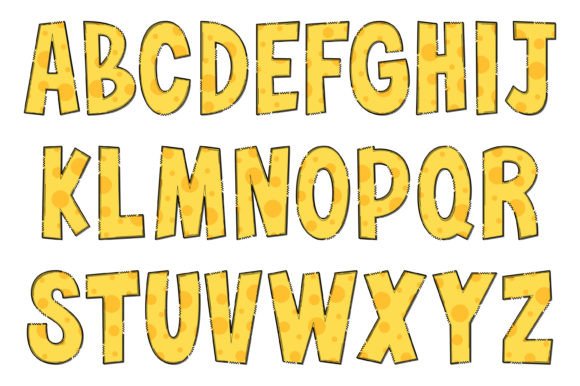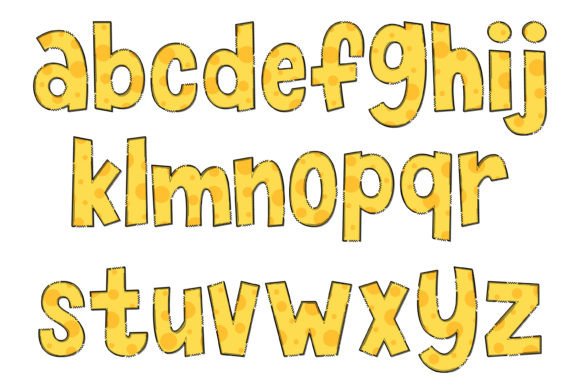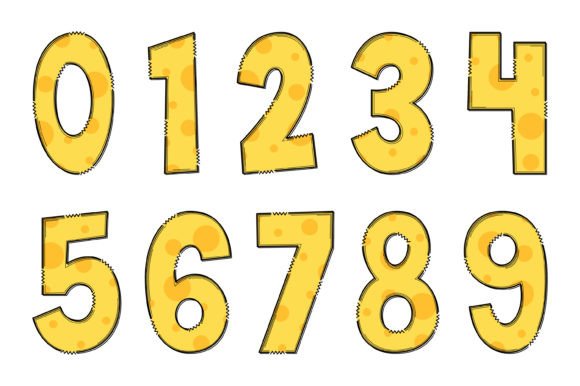
The Perfect Blend of Whimsy and Design
You know that moment when you’re brainstorming ideas for a new children’s book or a fun poster, and you just can’t seem to find the right font to capture the playful vibe you’re going for? That’s where the Cheese Font comes in – a delightful, hand-crafted typeface that’s designed to add a touch of whimsy to your designs.
Whether you’re a seasoned designer or just starting out, the Cheese Font is a valuable addition to your toolkit. Its playful, artistic feel makes it perfect for projects that need a bit of extra flair, from children’s books to invitations and greeting cards. With its compatibility with popular design software like PhotoShop, Illustrator, and Inkscape, you can easily incorporate this charming font into your next project.
Cheese Font Key Features
- Unique Characteristics: The Cheese Font features a unique, hand-drawn design with a distressed texture, adding a touch of warmth and personality to any project.
- Style Options: The Cheese Font family includes multiple styles, such as Regular, Bold, Italic, and Bold Italic, allowing designers to create a wide range of visual effects.
Designer Review: Cheese Font
First impressions count, and ‘Cheese Font’ caught my eye with its quirky name and playful vibe. ✨ I love the idea behind it – a font that’s meant to evoke the feeling of cheesy goodness, perfect for food-related projects or brand identities that want to add some whimsy. The font has a rounded, friendly feel that’s hard to resist.
One thing I appreciate about ‘Cheese Font’ is its versatility. It comes in a range of weights and styles, from light and airy to bold and chunky. ✨ This makes it suitable for a variety of applications, from headings and titles to body text and even logos. The font also has a decent range of language support, making it a good choice for global projects.
- ⚠️ The font’s quirky feel may not be to everyone’s taste. Some users may find it too playful or over-the-top.
- ⚠️ The font’s rounded edges can make it difficult to read in certain contexts, such as in small sizes or at a distance.
Overall, I think ‘Cheese Font’ is a fun and unique addition to any designer’s toolkit. While it may not be perfect for every project, it’s definitely worth considering for those that need a playful, eye-catching font. With a little creativity and restraint, ‘Cheese Font’ can add some much-needed personality to your designs.
Tips for Getting the Most Out of Cheese Font
Here are some tips to help you get the most out of Cheese Font:
- Use Cheese Font for creative and playful designs, such as menus, posters, and social media graphics.
- Pair Cheese Font with other bold and playful fonts to create a unique and eye-catching look.
- Experiment with different font sizes and colors to add visual interest to your designs.
Cheese Font is commonly used in the following scenarios:
- Food and beverage branding, such as menus and labels.
- Playful and creative designs, such as posters and social media graphics.
- Children